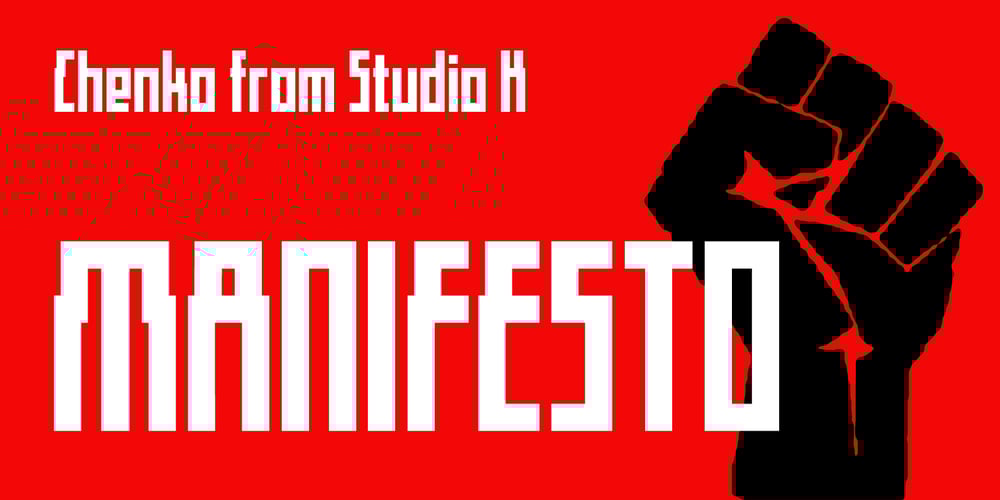
Chenko Font Family was designed by Keith Tricker and published by Studio K. Chenko contains 2 styles and family package options. Chenko is a nod to Alexander Rodchenko the Russian Constructivist artist and designer whose poster work is characterised by its stark, stripped down typography and bold, geometric graphics. It was truly revolutionary in its day, and continues to be influential in ours. Chenko is my own take on his deceptively simple letterforms, and designing a font without a curve or a diagonal (okay I cheated on a few details like the O-slash and A ring characters) presented some interesting design challenges!